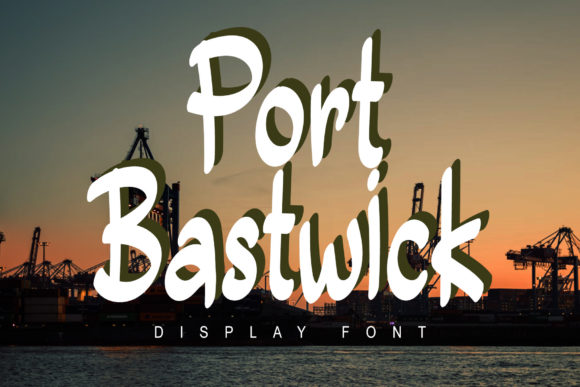
In a world saturated with monotony and uniformity, Port Bastwick Font emerges as a beacon of uniqueness and creativity, a script font that dances across the digital canvas with grace and fluidity. Inspired by the whimsical charm of hand-drawn lettering, this font is the perfect choice for those seeking to infuse their designs with a touch of whimsy and artistry.
With its playful and expressive strokes, Port Bastwick Font captivates the eye, inviting viewers to linger and explore the depths of its intricate details. Each letterform is a work of art, crafted with love and attention to detail, creating a visual symphony that resonates with emotion and authenticity.
Dive into the world of Port Bastwick Font, and let your imagination run wild. Whether you're creating eye-catching logos, branding that speaks to the heart, or quotes that inspire and uplift, this font is your trusted companion, guiding you towards creative excellence.
Unleash the boundless potential of Port Bastwick Font, and transform your designs into masterpieces that captivate and enchant. Let your ideas take flight, and let this font be the instrument that brings your vision to life.